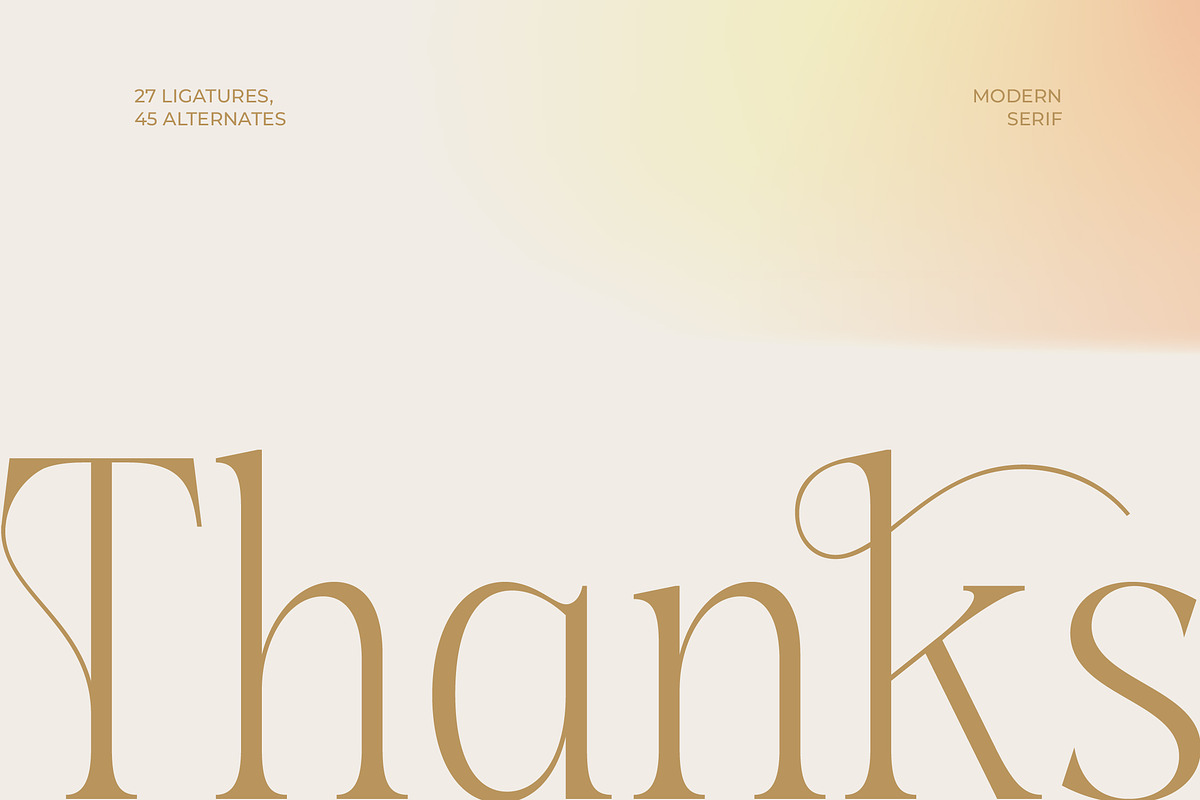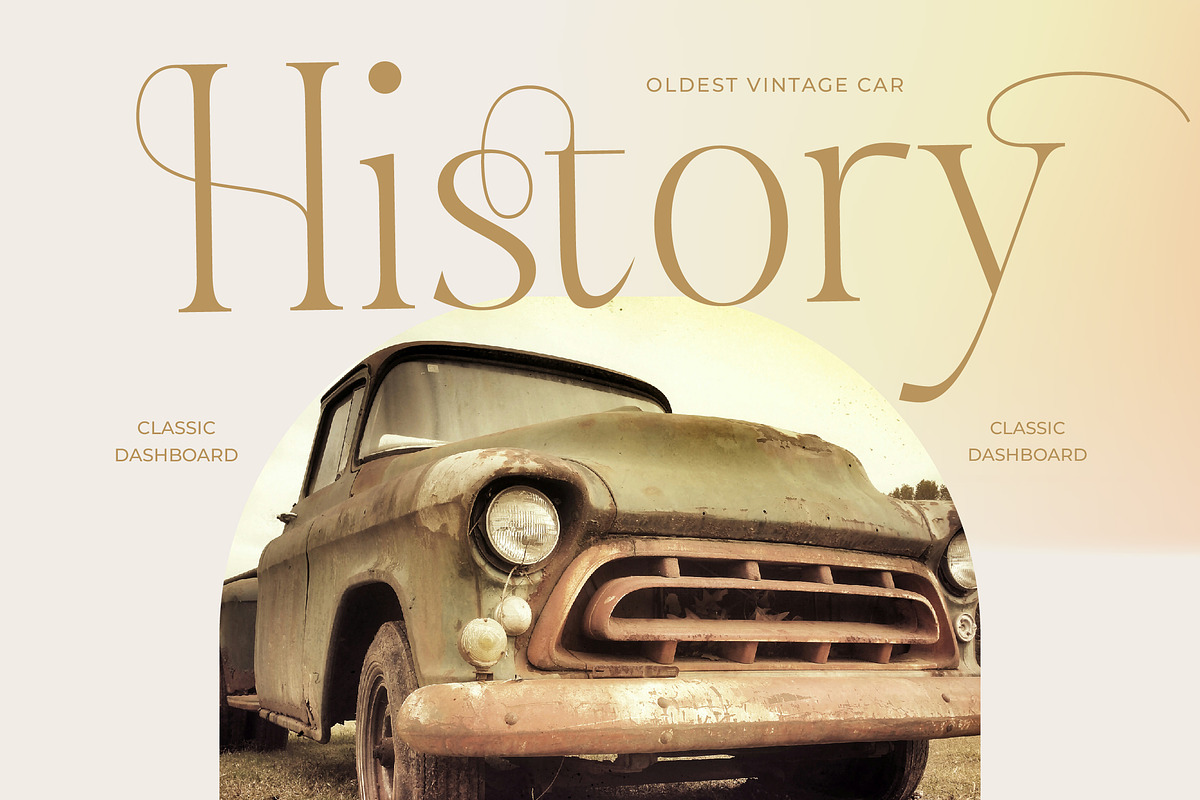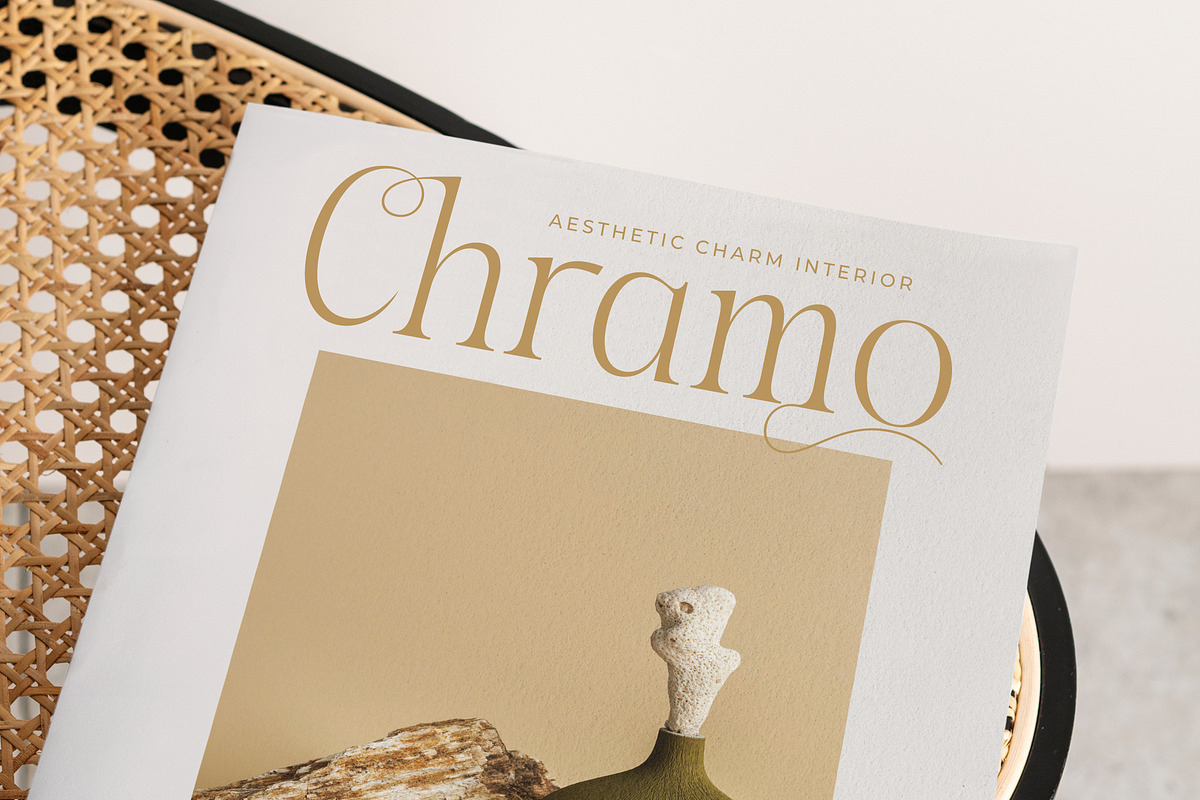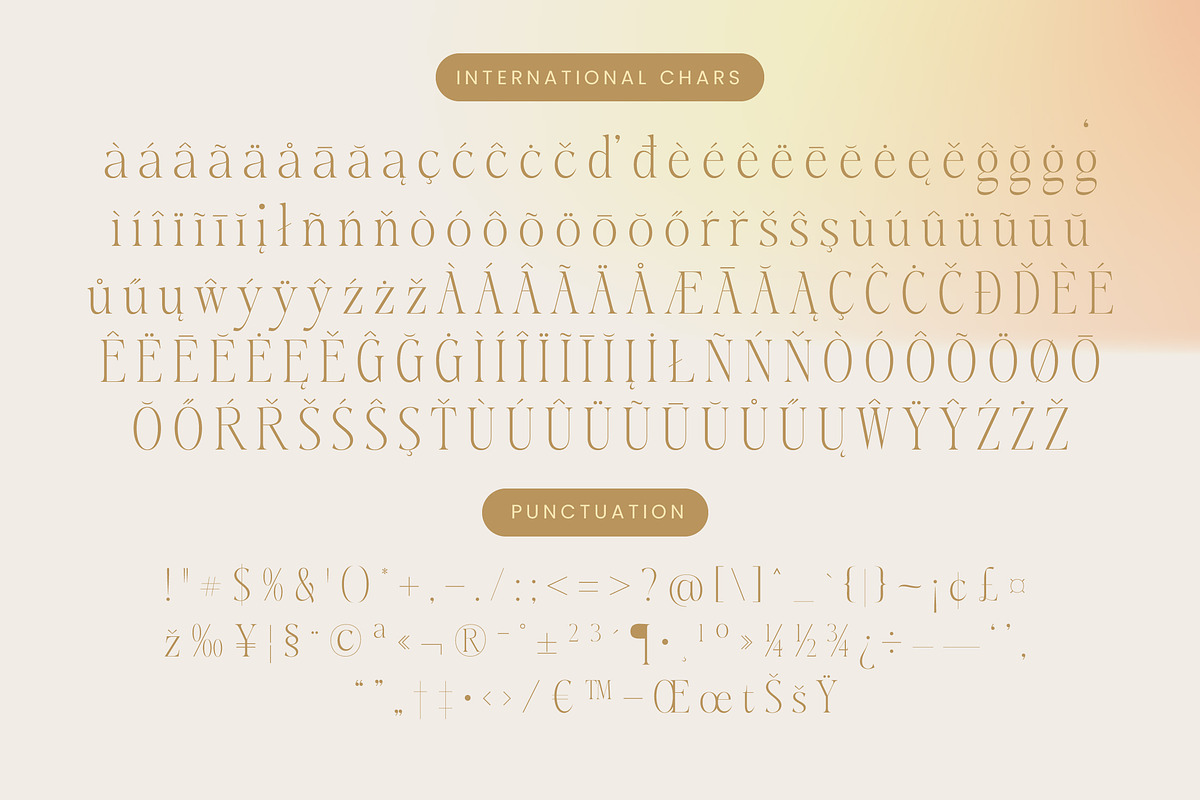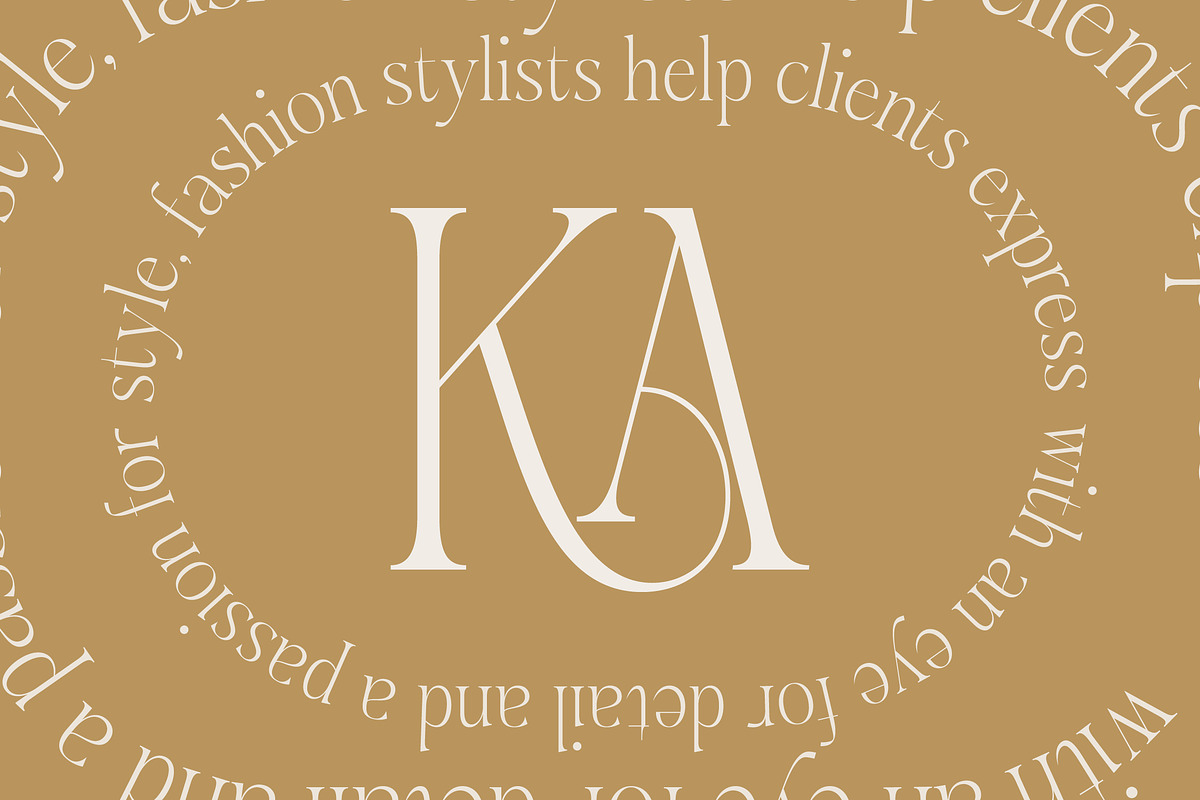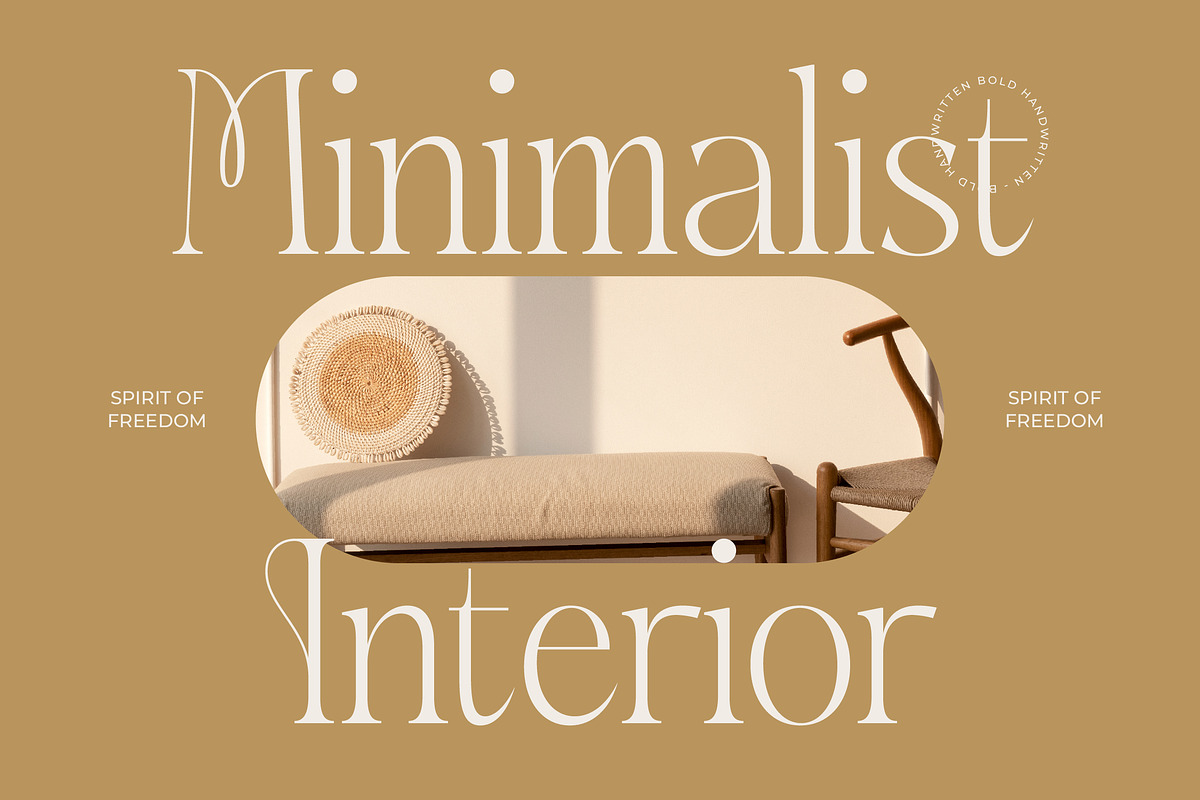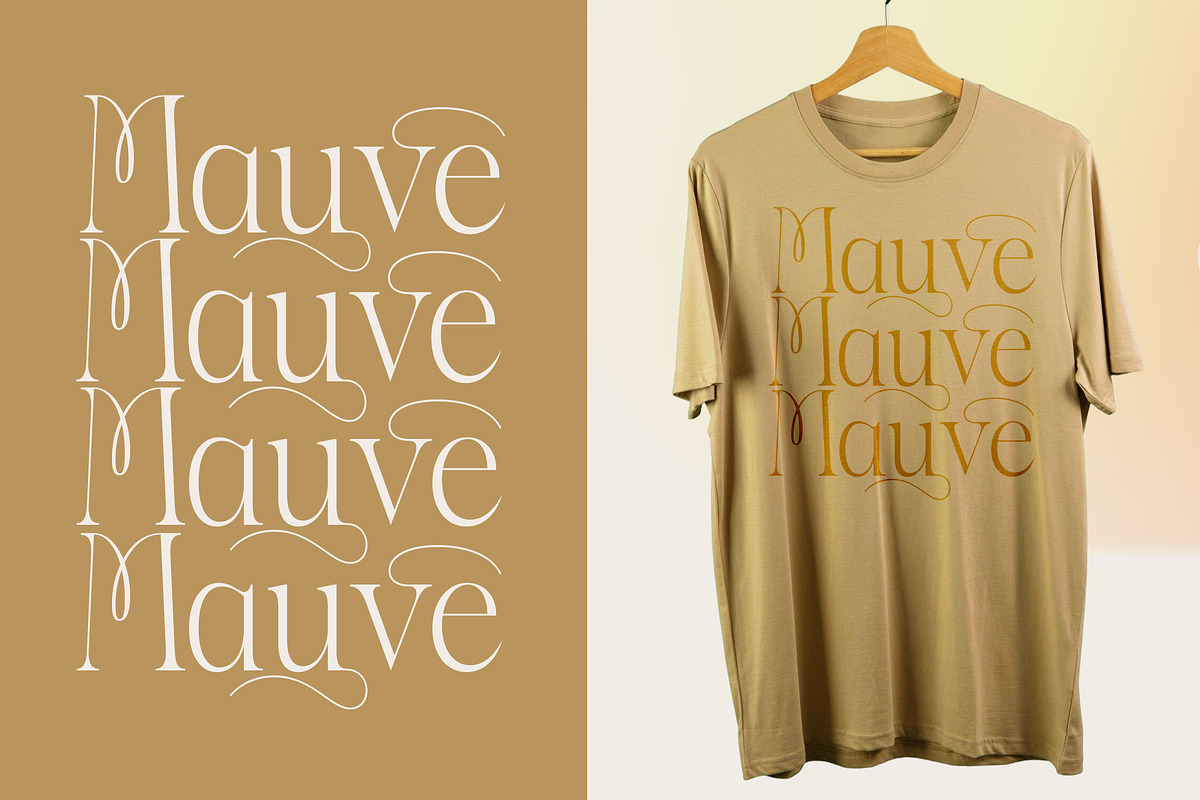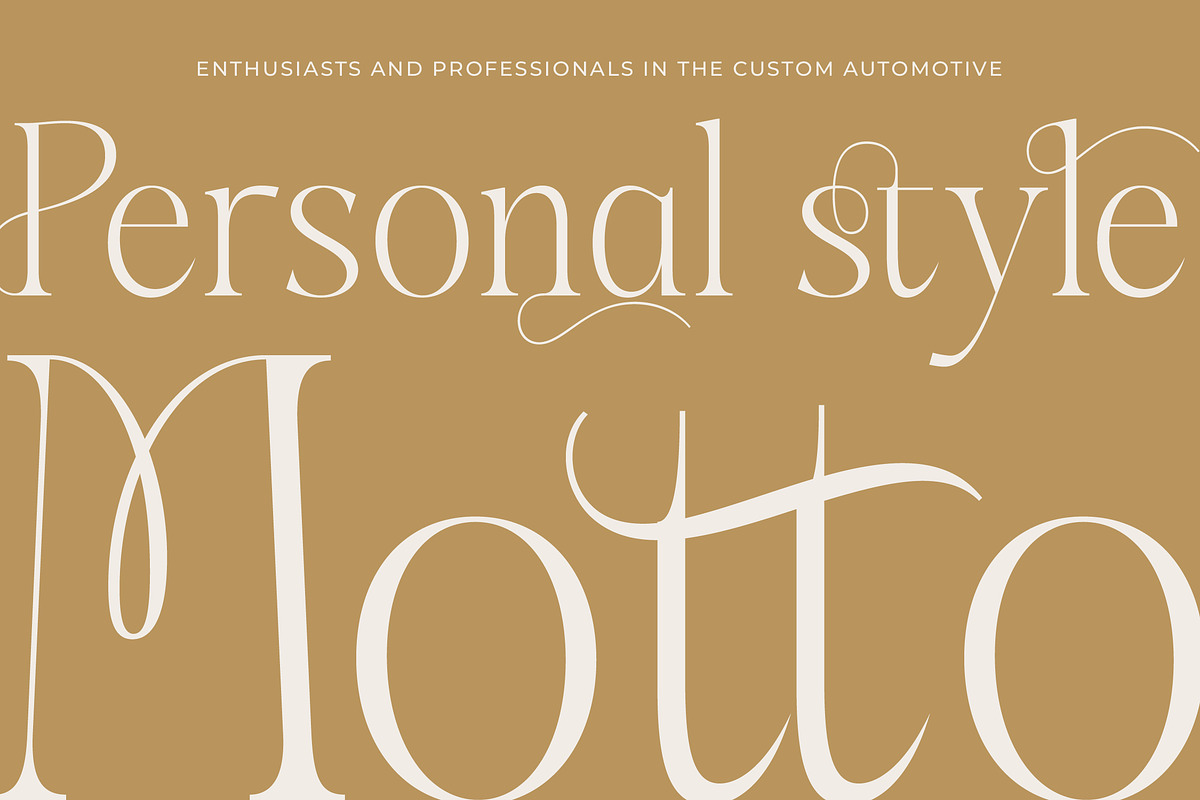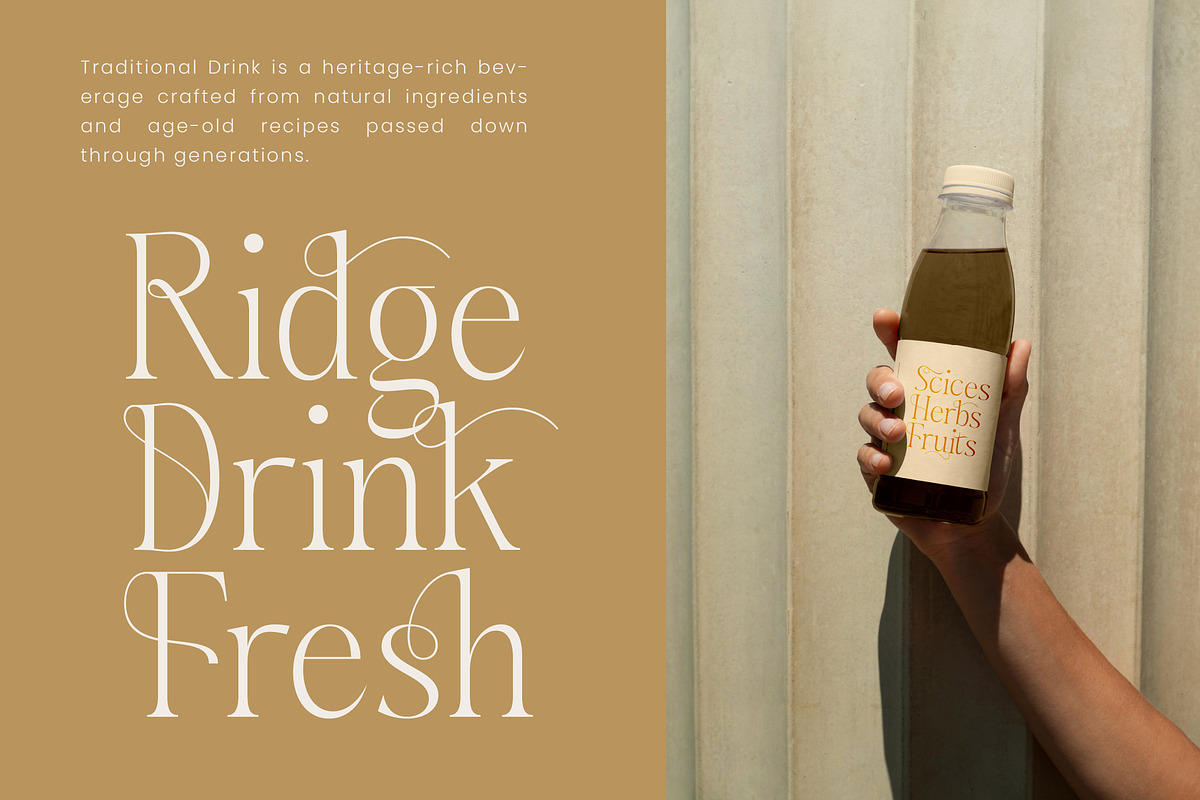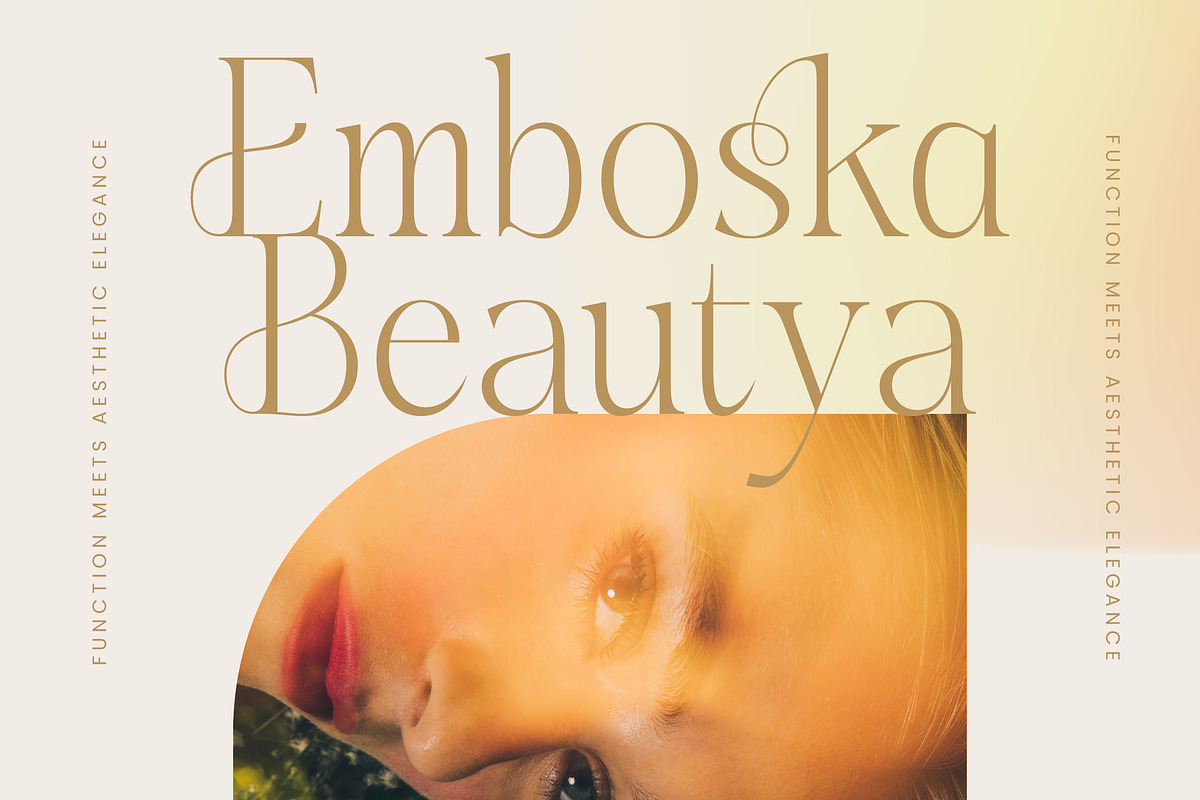
Aska Modern Elegant Serif Font
Aska is a breathtaking modern serif that redefines elegance through its delicate strokes and fluid, artistic ligatures. This typeface is designed to bring a sense of high-end luxury and timeless grace to every creative project it touches.
Inspired by the soft play of light and shadow in architectural minimalism, the font captures a dreamy, ethereal atmosphere. Its unique loops and extended curves evoke the feeling of fine jewelry or high-fashion tailoring.
This font radiates a distinct modern serif display persona that is perfect for achieving an elite luxury typography look. With its high-contrast serif construction, it delivers an unmistakable editorial font vibe that ensures maximum branding impact.
Tapping into the current modern serif trend, this typeface is a masterclass in character-driven typography. It perfectly aligns with the rise of editorial display fonts that prioritize artistic expression and personality over standard utility.
It is the ultimate choice for high-stakes logo design and comprehensive branding systems where sophistication is key. From high-end editorial layouts and luxury packaging to romantic wedding stationery and fashion magazine spreads, its versatility is unmatched.
The set is packed with 27 unique ligatures and 45 creative alternates that allow for custom-tailored designs. It also includes swashes, full multilingual support, and a wide range of international characters to serve a global audience.
- Ligature 47 Alternate 45